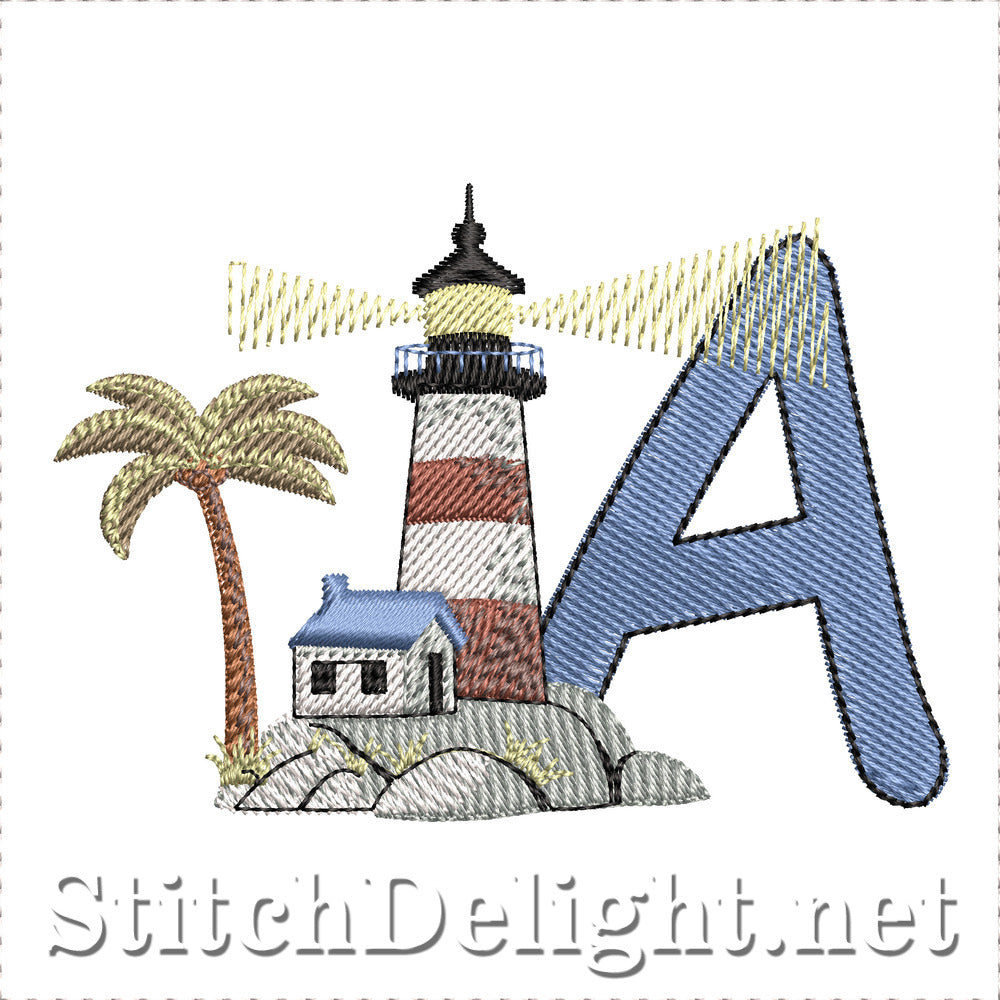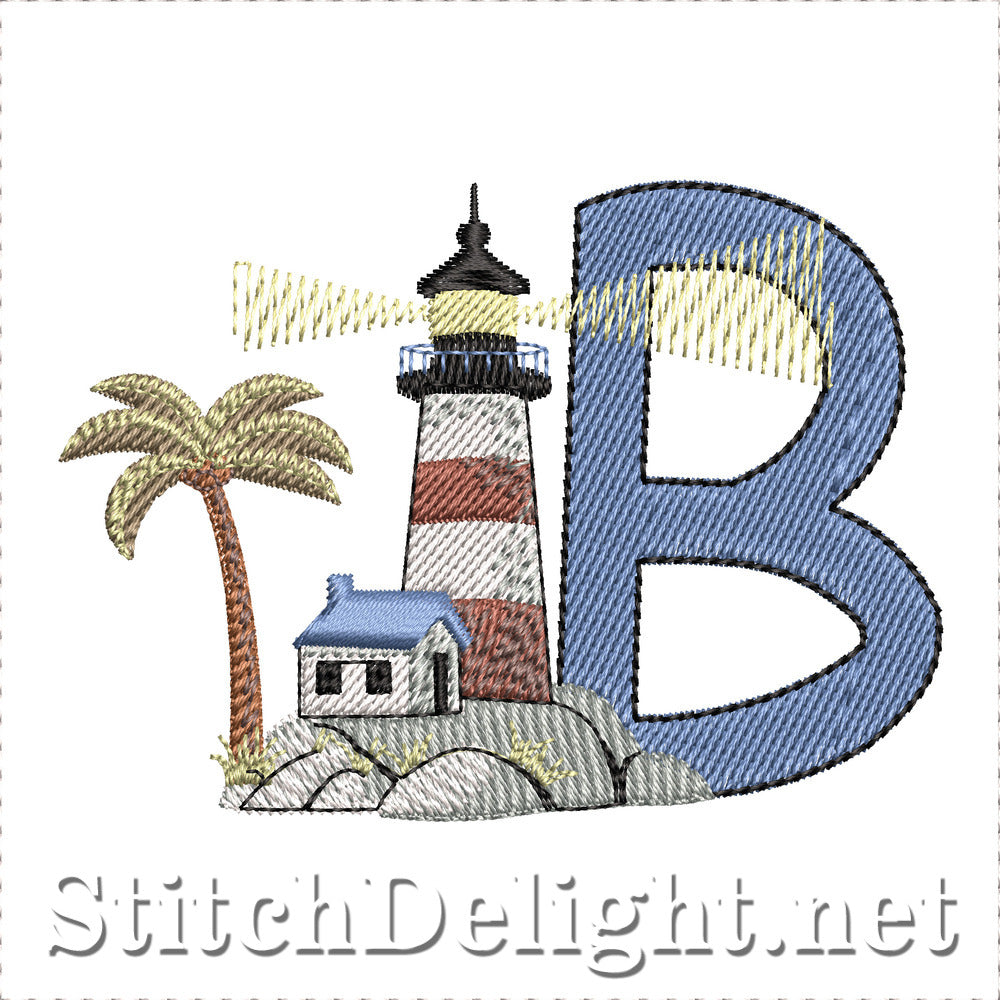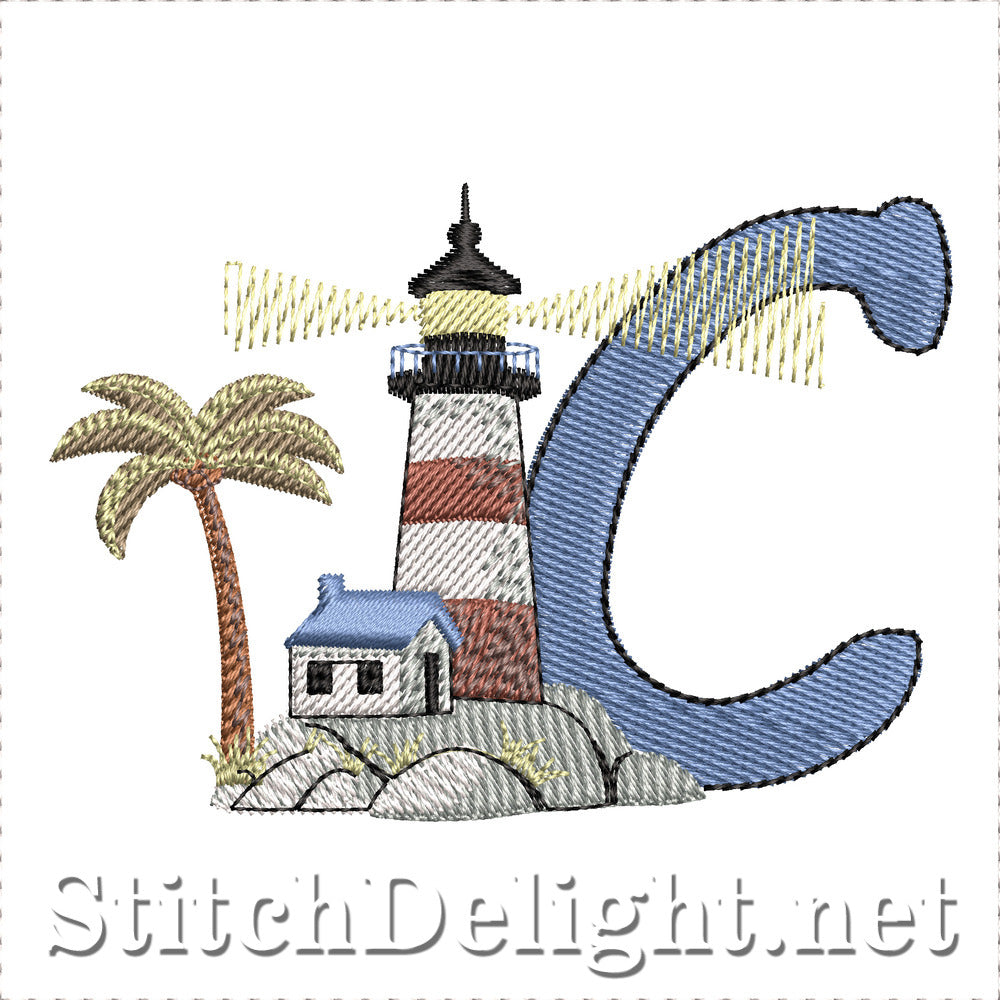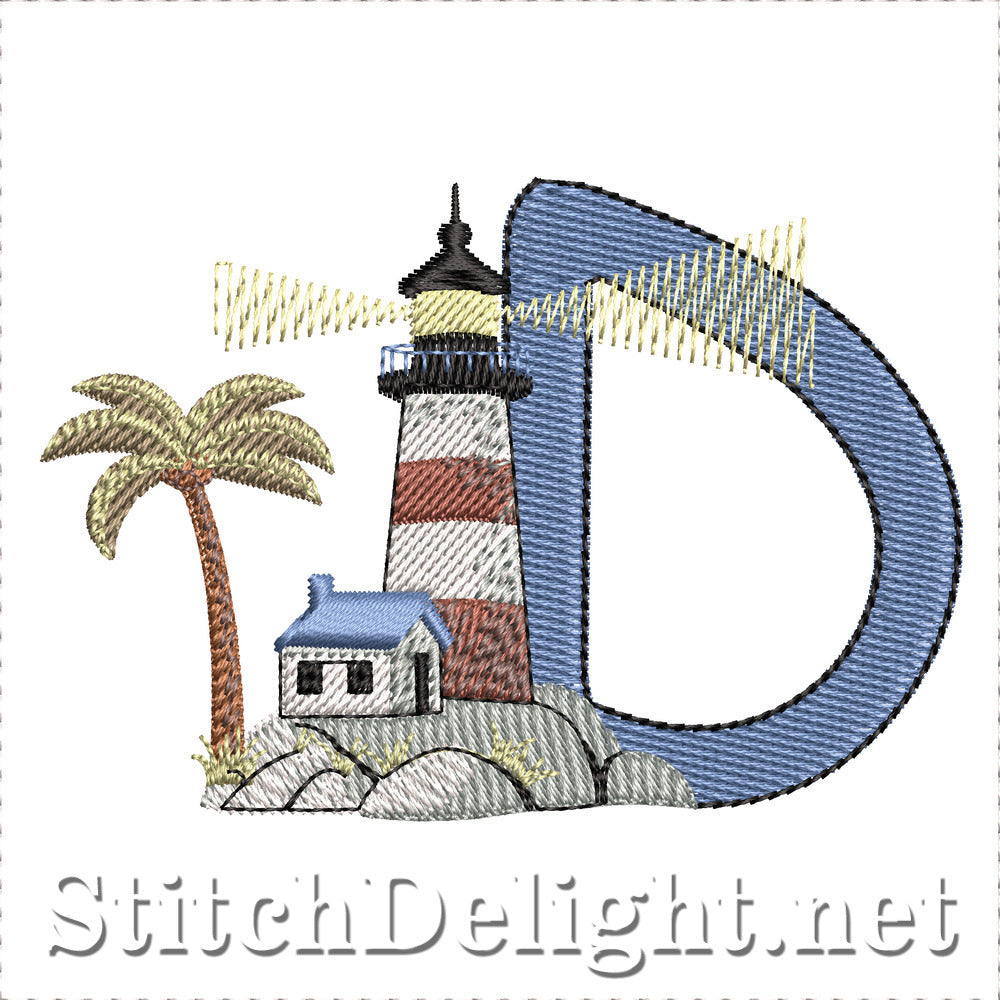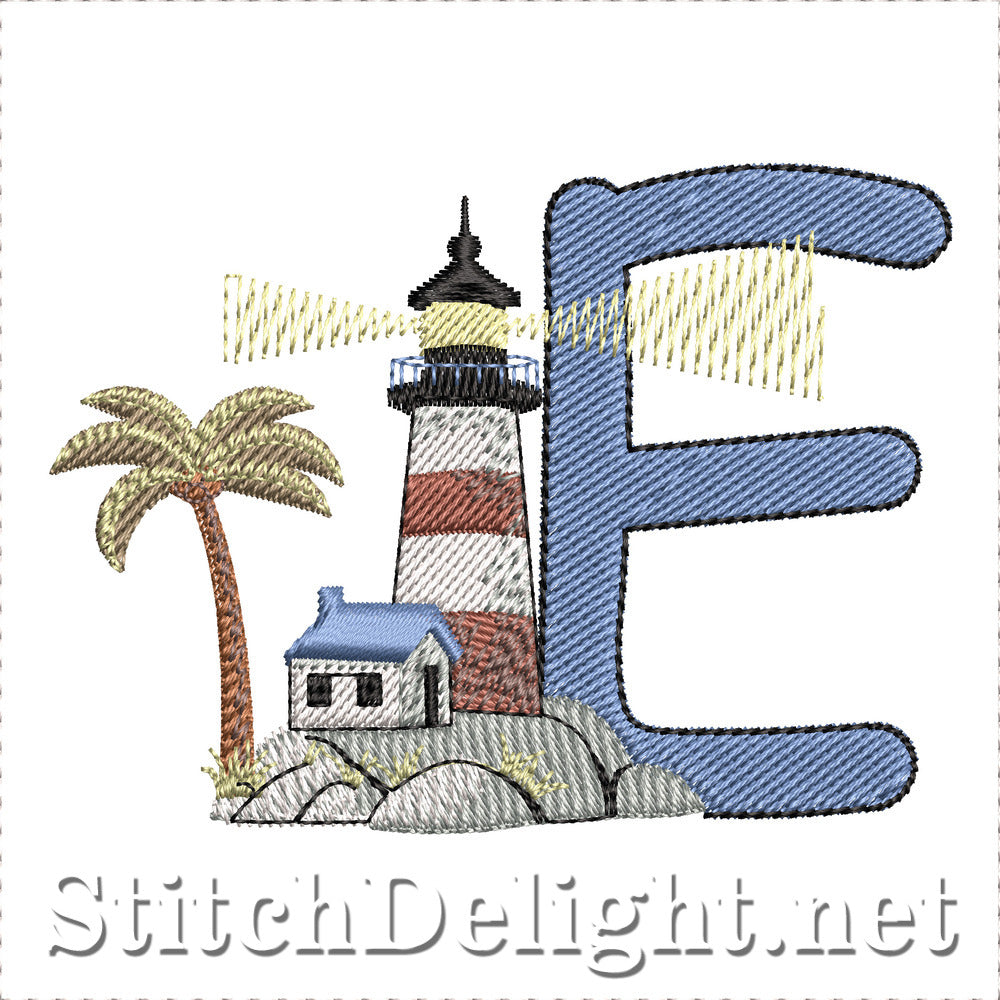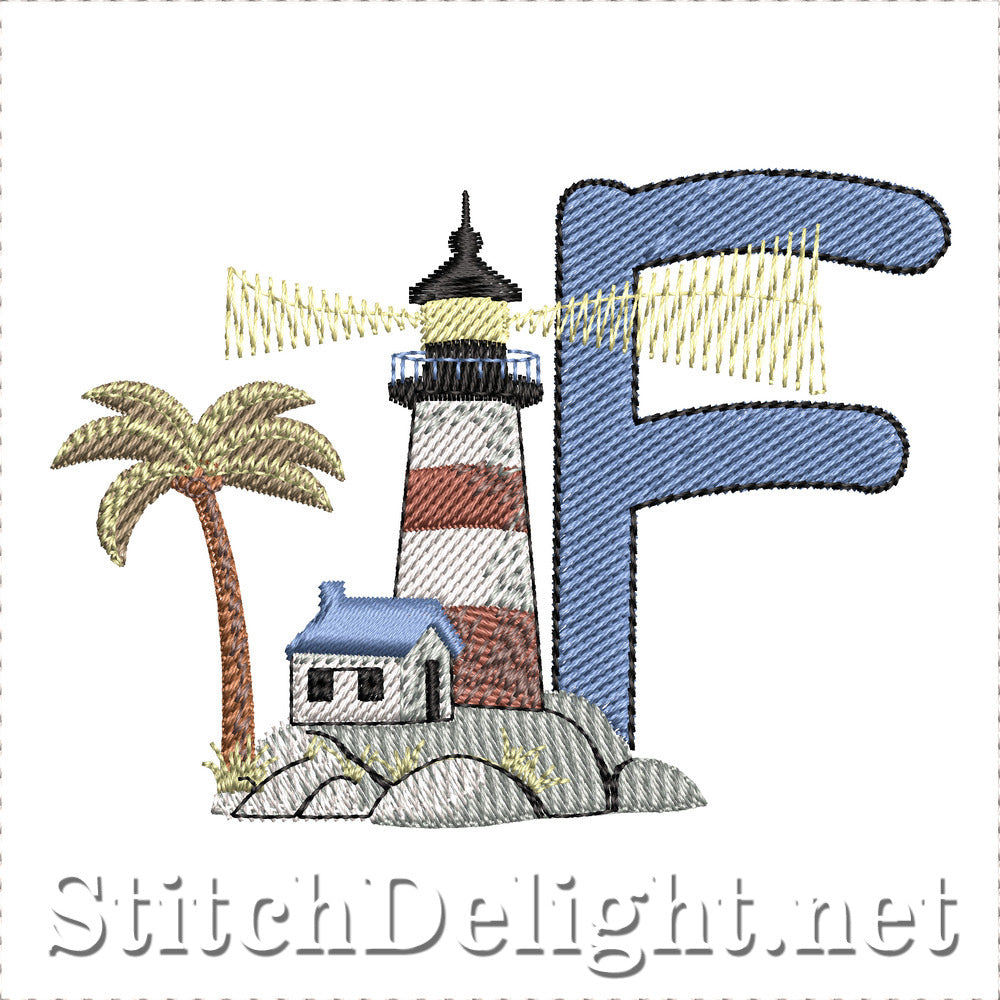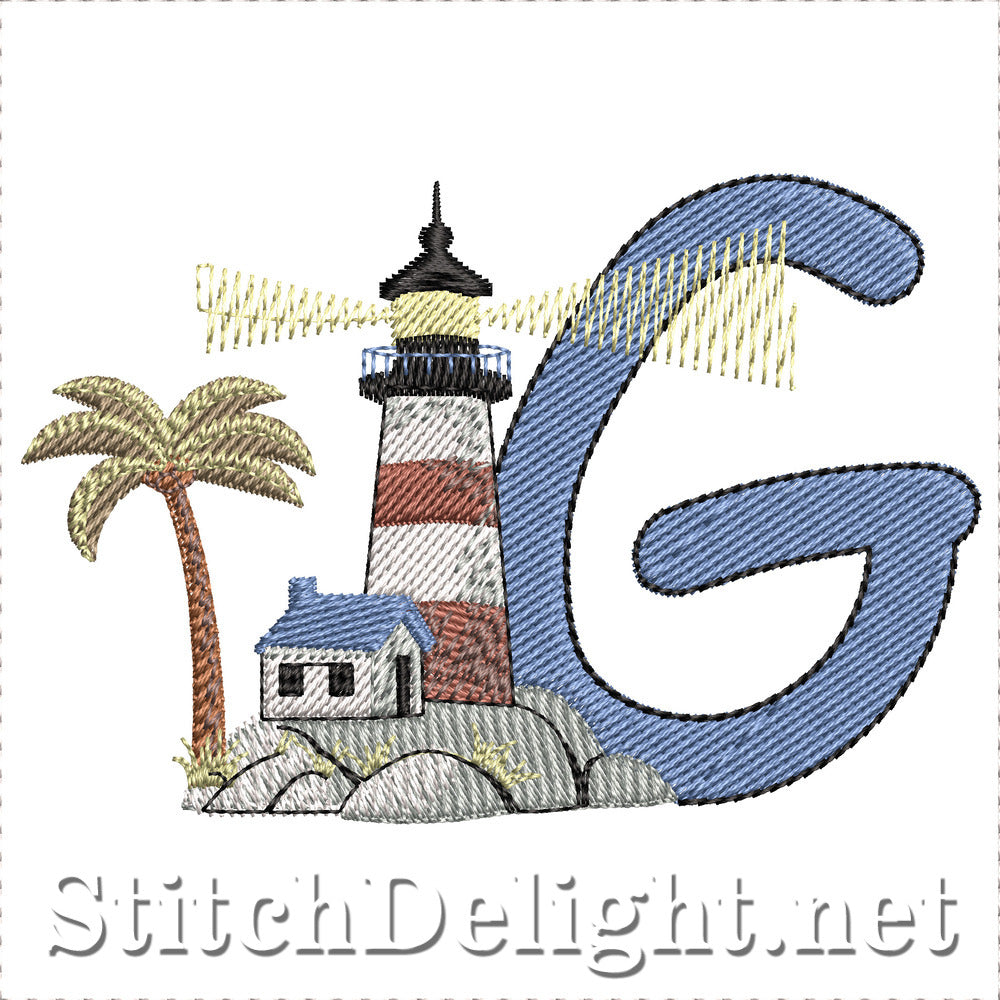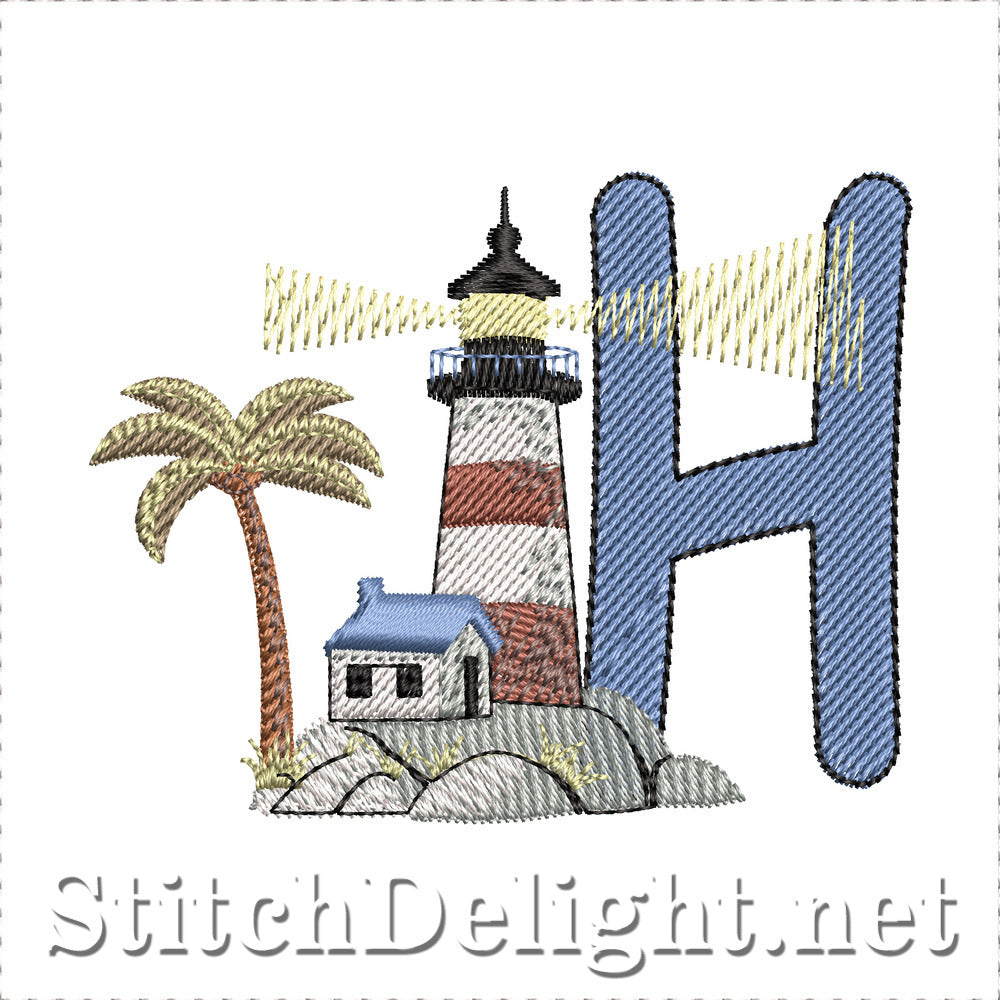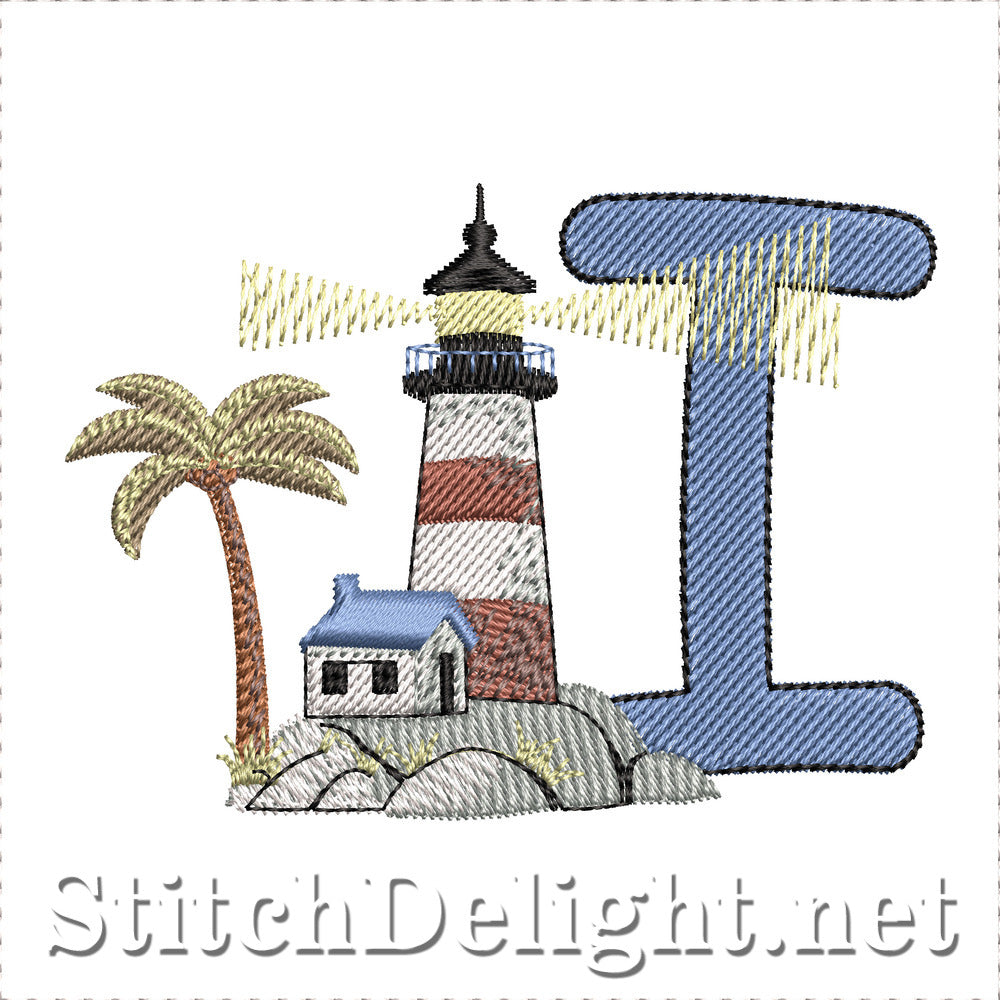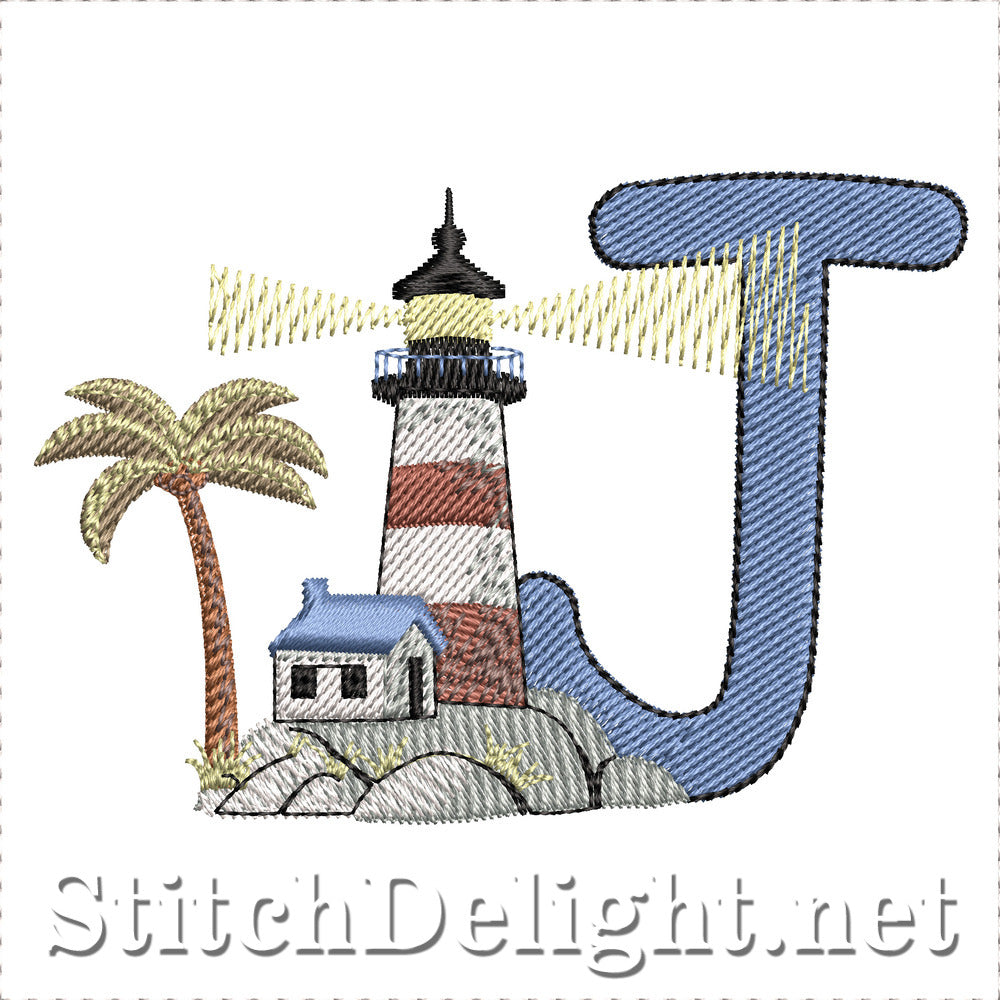
Lighthouse Coastline Font – SDS3355
Let your creativity shine with this charming Lighthouse Coastline Font! Each letter is beautifully adorned with a coastal scene featuring a classic red-and-white lighthouse, palm trees, rocky shores, and a cozy seaside cottage. The beam of light from the lighthouse brings a delightful touch of motion and warmth to every letter.
Perfect for ocean-themed projects, nautical décor, or summertime stitching, this font adds a whimsical yet elegant look to names, quotes, and monograms.
Sail into creativity with this one-of-a-kind embroidery font!